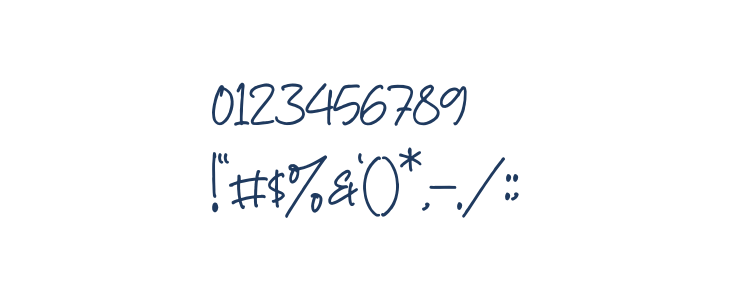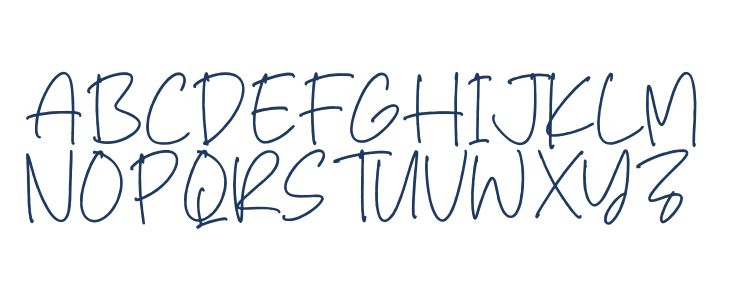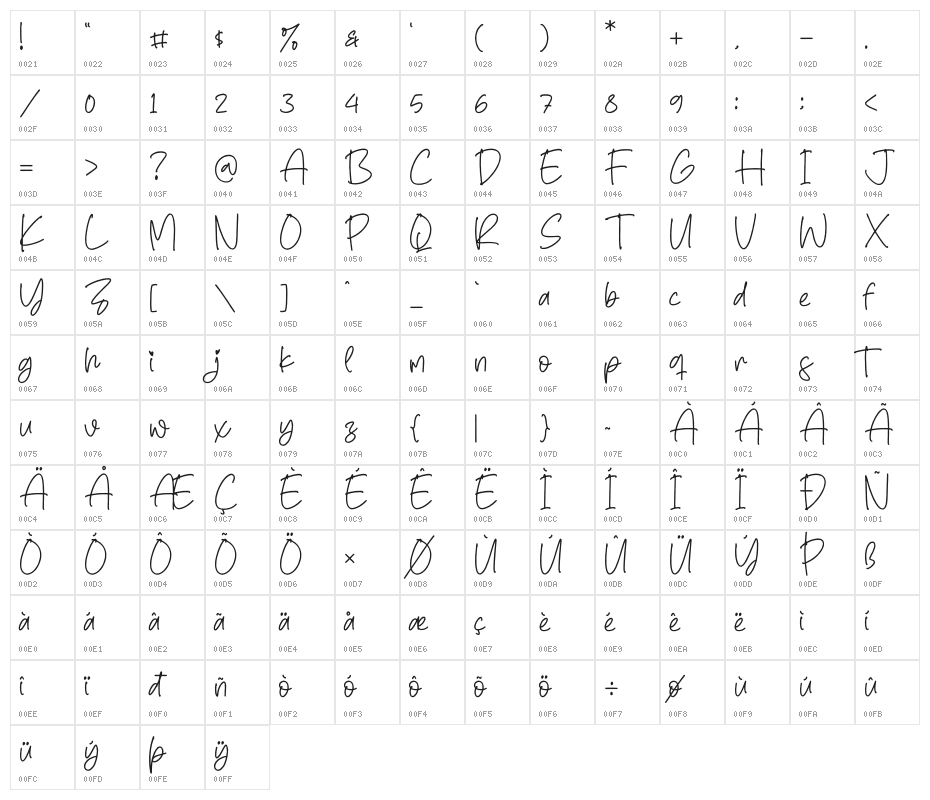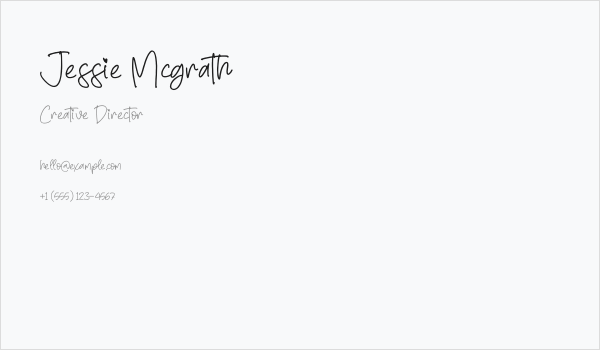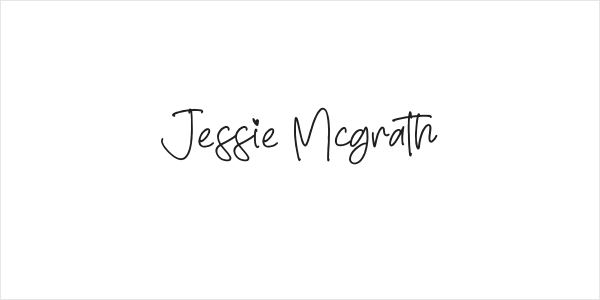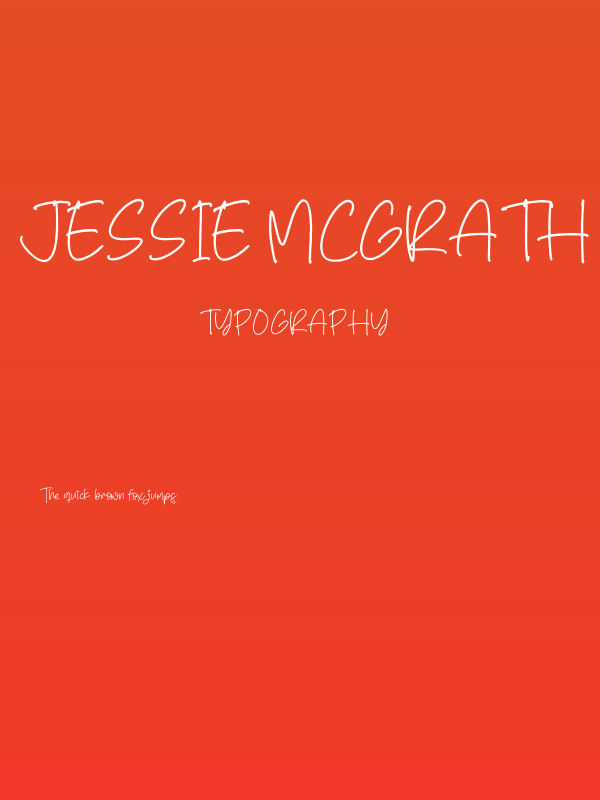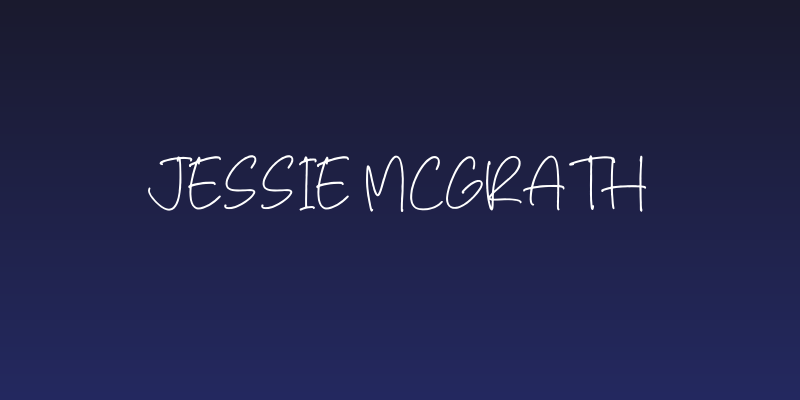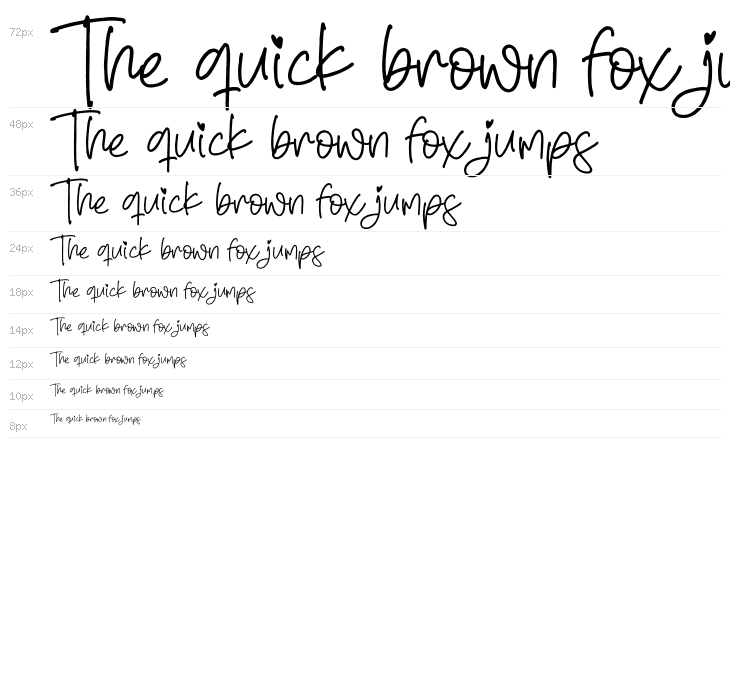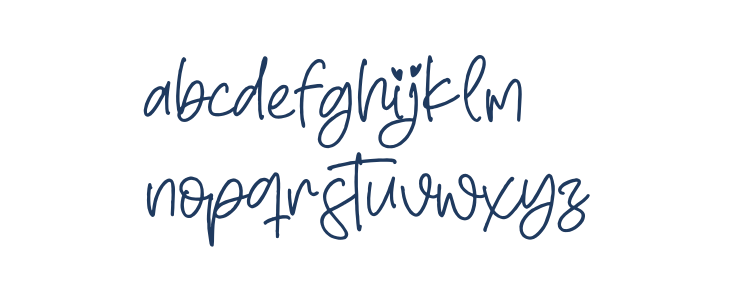
Jessie Mcgrath Font
Jessie Mcgrath Description
A playful, casual handwritten font with irregular strokes and whimsical details, such as heart-shaped dots on the 'i' and 'j'. The characters are loosely spaced, with varying heights and a natural, informal flow. The numerals and punctuation maintain the same hand-drawn, lively style.
| Overall Style | Playful, Informal, Whimsical |
| Use Case | Headlines, Short quotes, Decorative text |
| Proposed Projects | Greeting cards, invitations, children's books, social media graphics, personal branding. |